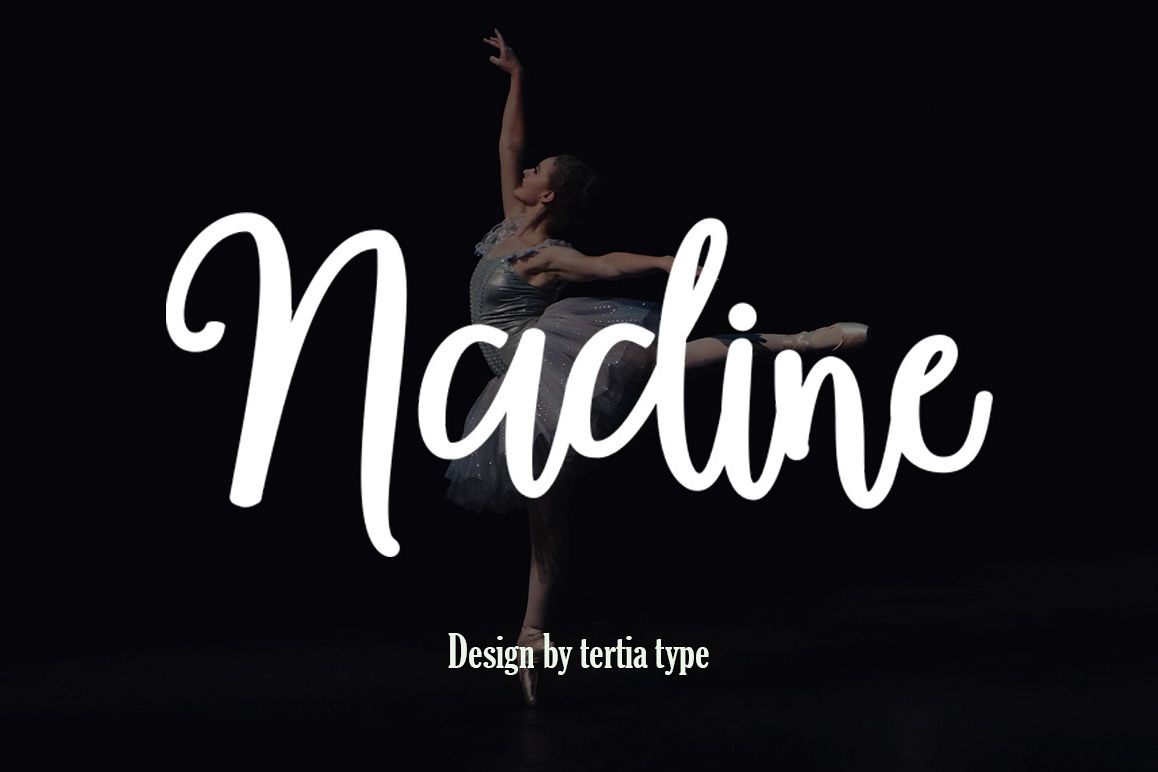
nadine script
Oh Nadine...
I’m pleased to introduce my new  script font Nadine.This font includes  full set of lowercase alternates to make your text as close to a natural handwritten script as possible. It's perfect for branding, wedding invites and cards, headings, signatures, product packaging, quotes, greeting cards, logos, overlays and much more